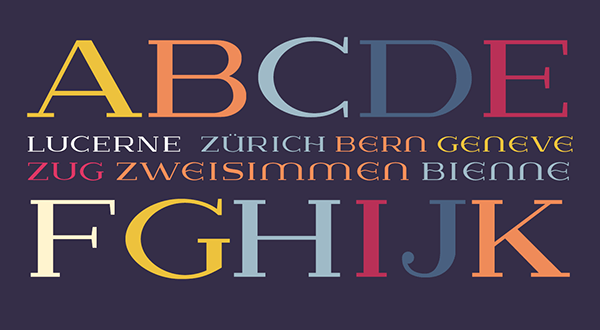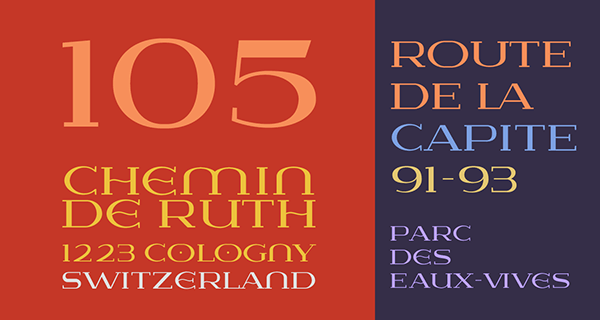
Free Font Of The Day #122 – Lausanne Font
Lausanne Font has been inspired by the logos of luxurious brands like Prada or Louis Vuitton. Is free for personal use. Please contact the designer for commercial use. Designed by Ivan Filipov.